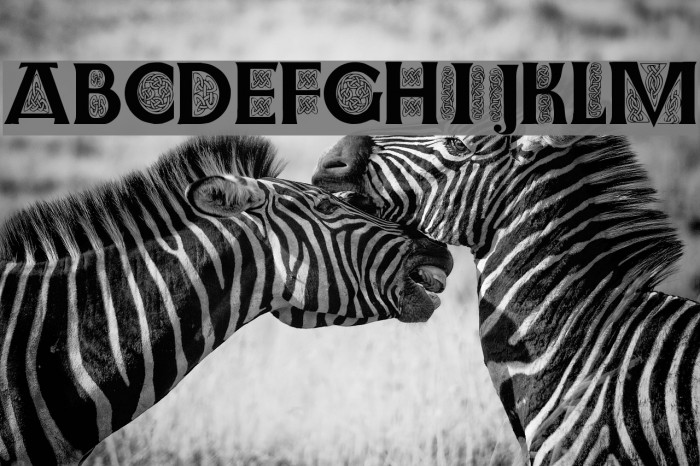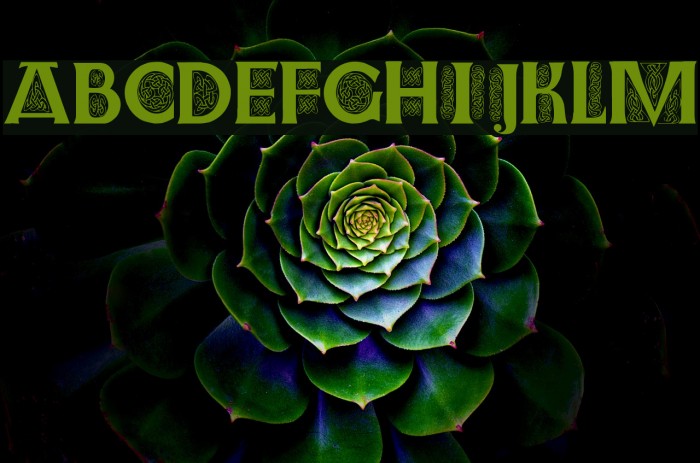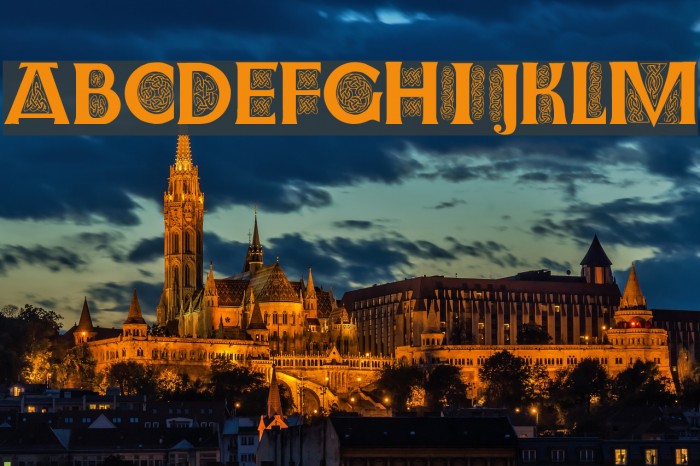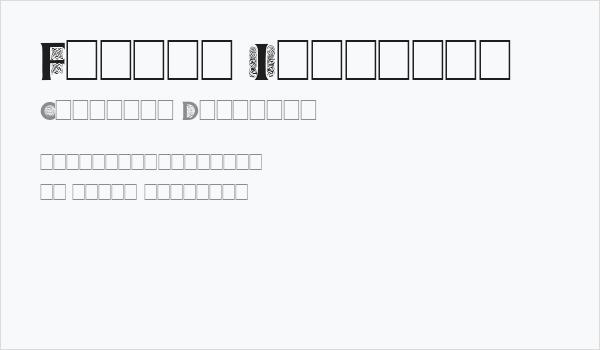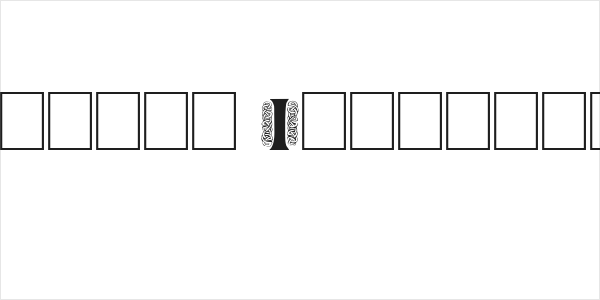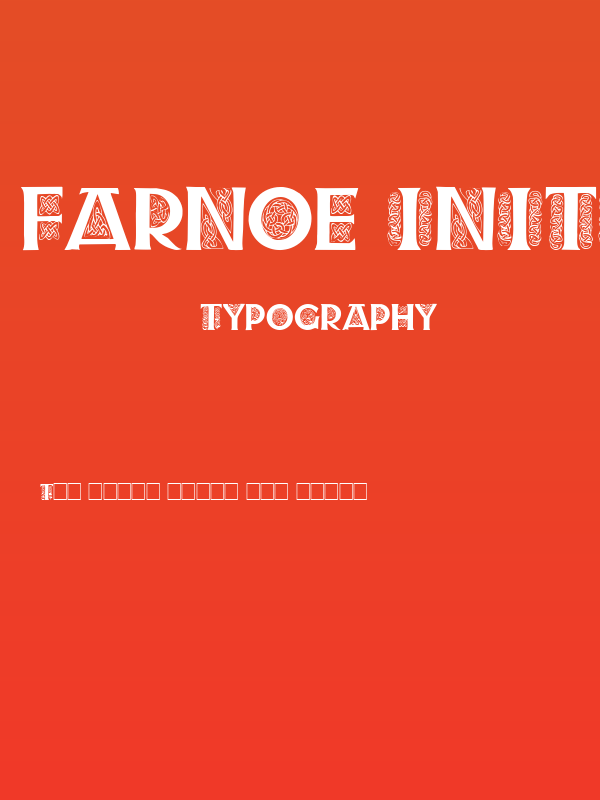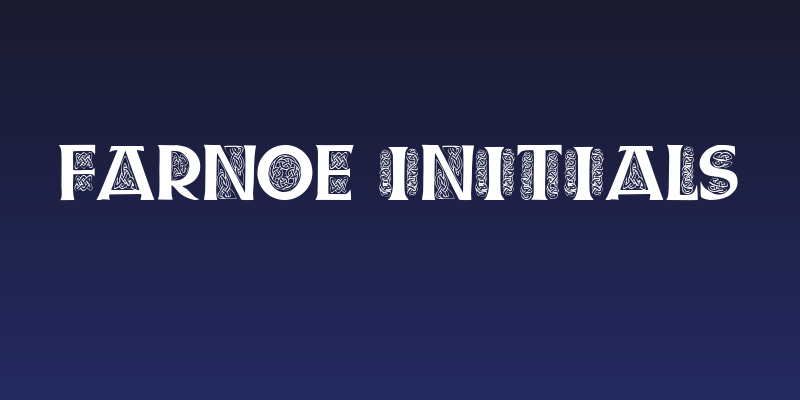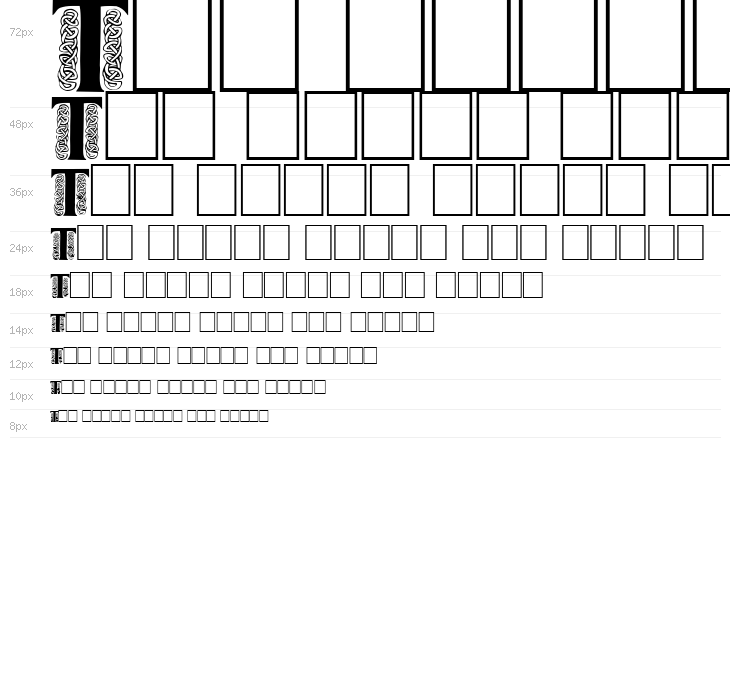
Farnoe Initials Font
This font features a bold and decorative style with intricate patterns filling the interior of each letter. The uppercase letters are designed with a strong presence, making them ideal for initial caps or decorative headings. The intricate detailing within each character adds a sense of elegance and complexity, making it stand out in any design. The font's unique style is reminiscent of vintage or art deco influences, offering a blend of classic and ornate aesthetics. It is particularly suitable for projects that require a touch of sophistication and artistic flair.
Overall StyleVintage, Decorative
Proposed ProjectsIdeal for wedding invitations, luxury branding, book covers, and decorative signage.